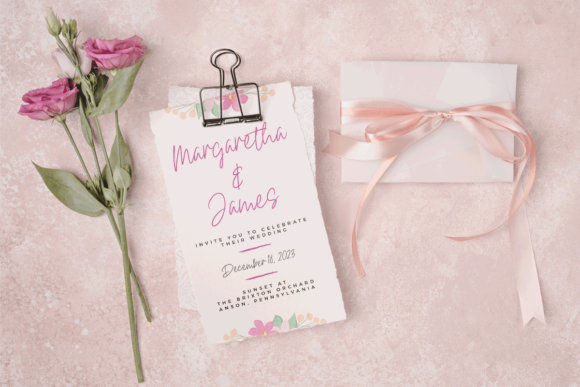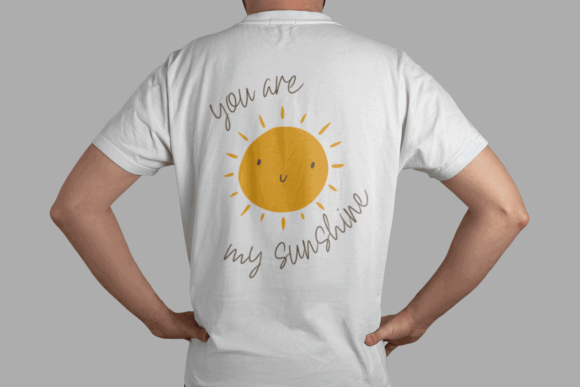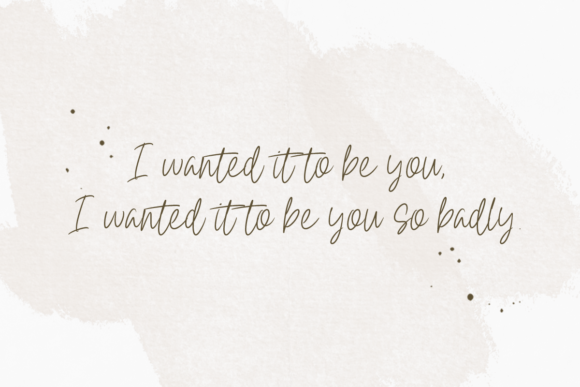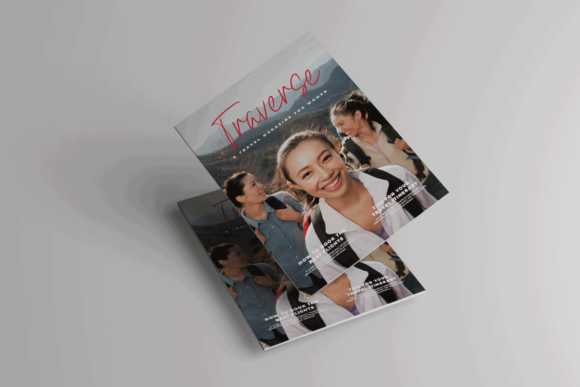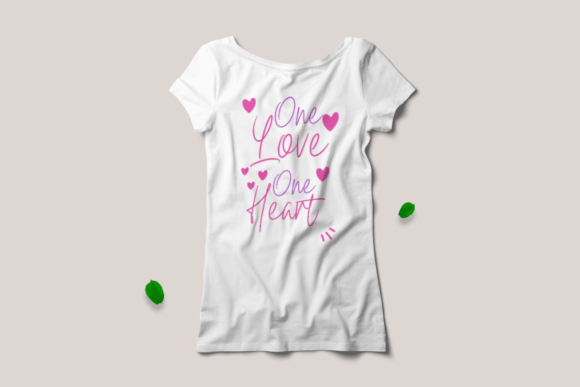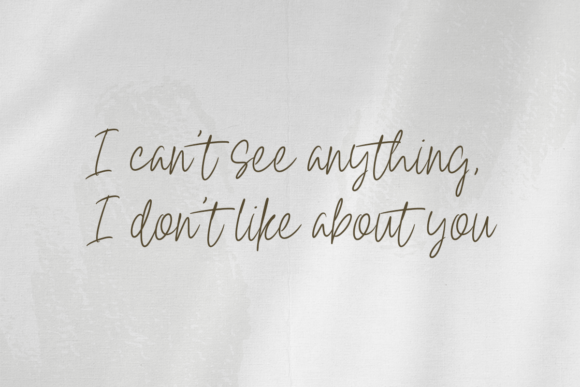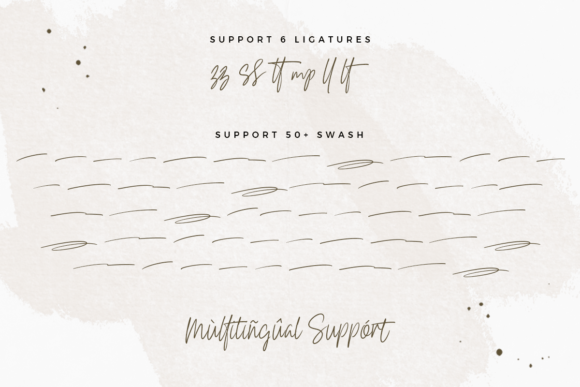
The Sultan Empire Signature Font
About The Sultan Empire Signature Font
“The Sultan Empire” exudes a captivating blend of charm and elegance. With its versatile appeal, this font becomes an ideal choice for a range of applications, from quotes and greeting cards to business cards, wedding invitations, logos, magazine covers, and t-shirt designs. The font’s swashes serve as a tool to infuse a personal and realistic touch into your creations. Additionally, its PUA encoding empowers easy access to the diverse collection of glyphs and swashes.
The allure of “The Sultan Empire” resides in its ability to convey both charm and elegance through its design. Its balanced strokes and intricate details contribute to an aesthetic that resonates with sophistication and visual appeal. This font is well-equipped to elevate your work to a new level of aesthetic excellence.
Whether you’re designing wedding invitations that demand a touch of refinement, creating logos that reflect professionalism, or crafting t-shirt designs that require a personalized touch, “The Sultan Empire” becomes an indispensable tool. Its versatile nature allows it to seamlessly integrate into various projects, enhancing their impact.
Incorporating “The Sultan Empire” into your design projects means embracing its charming and elegant attributes. By utilizing its unique charm, you’re enhancing the visual allure of your work and ensuring that your designs resonate effectively with your intended audience. This font becomes a valuable resource for infusing your creations with a touch of sophistication and personalization, while the PUA encoding feature offers enhanced design possibilities.